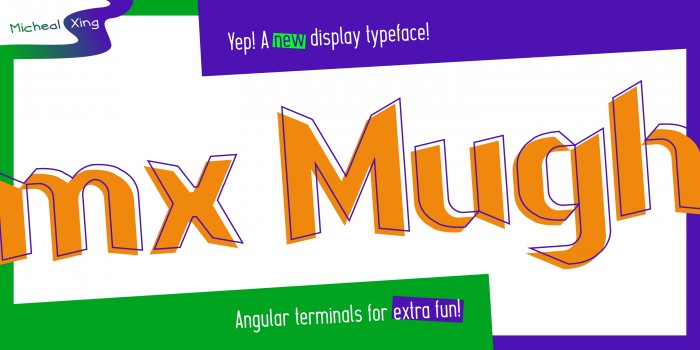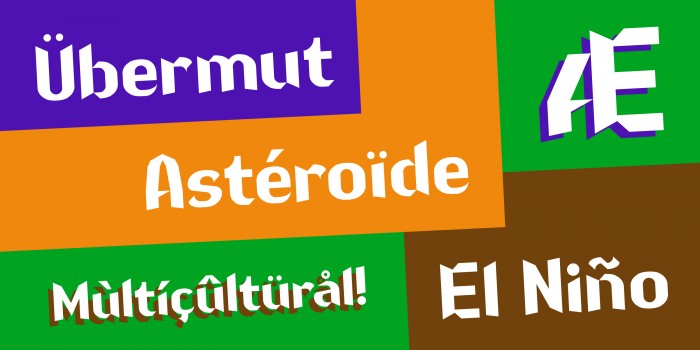
MX Mugh Heavy
• I started this typeface out with the letter 'a', and from there slowly build up the other glyphs and came to realise it looks like a festive type. It's most likely due to the terminals being very angular and sharp, and that thought strengthens ever more so after I tried using it in Adobe Illustrator.
Those composites are incredible, the calligraphic quality is outstanding. A well deserved TP, congratulations.
Congratulations, Top Pick well deserved. Great extended character set. 10/10
Nice work, these angles give the text a playful flow.